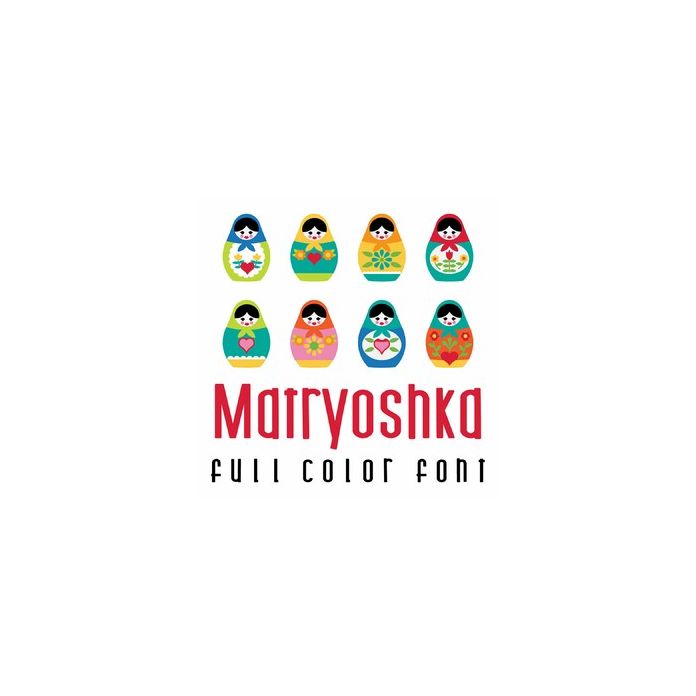
This adorable full color doodlebat font features 26 Russian styled stacking dolls. Perfect for cards, crafts, gifts, decor, scrap book pages, planner stickers and more!